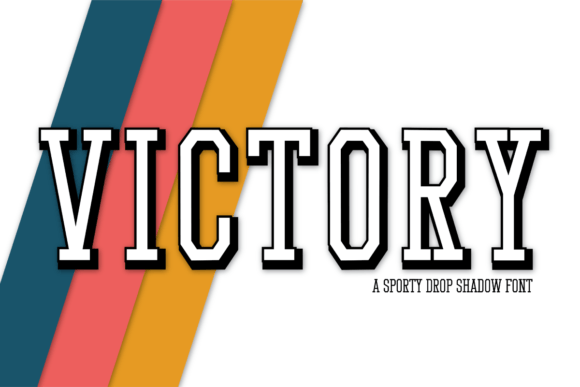
“Victory” is a bold and striking display font with a sporty, collegiate drop-shadow style, perfect for creating impactful designs that demand attention. Inspired by varsity letters and team logos, this font is ideal for sports branding, event posters, apparel, and any project that needs a powerful and competitive edge. The strong letterforms and shadow effect make it perfect for both print and digital designs, adding depth and dynamism to your work. Use “Victory” to make your designs stand out in any arena, from team merchandise to motivational banners.
Victory Font